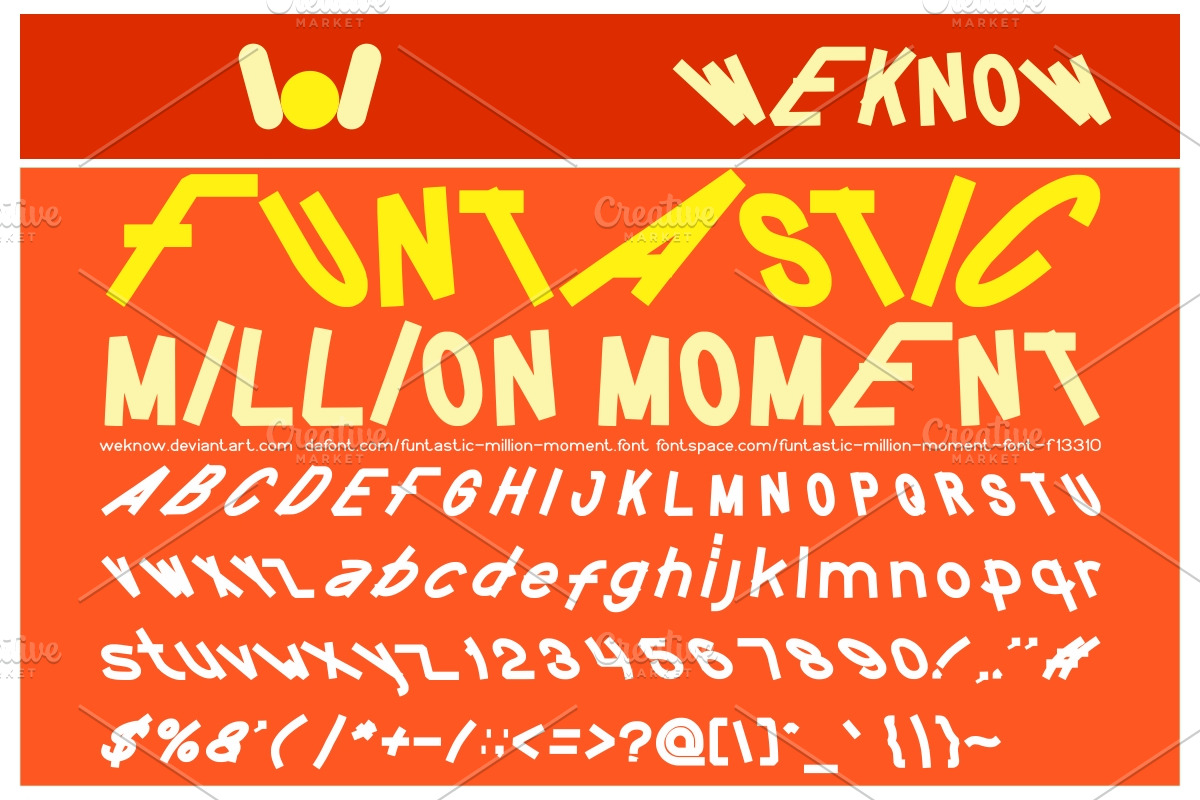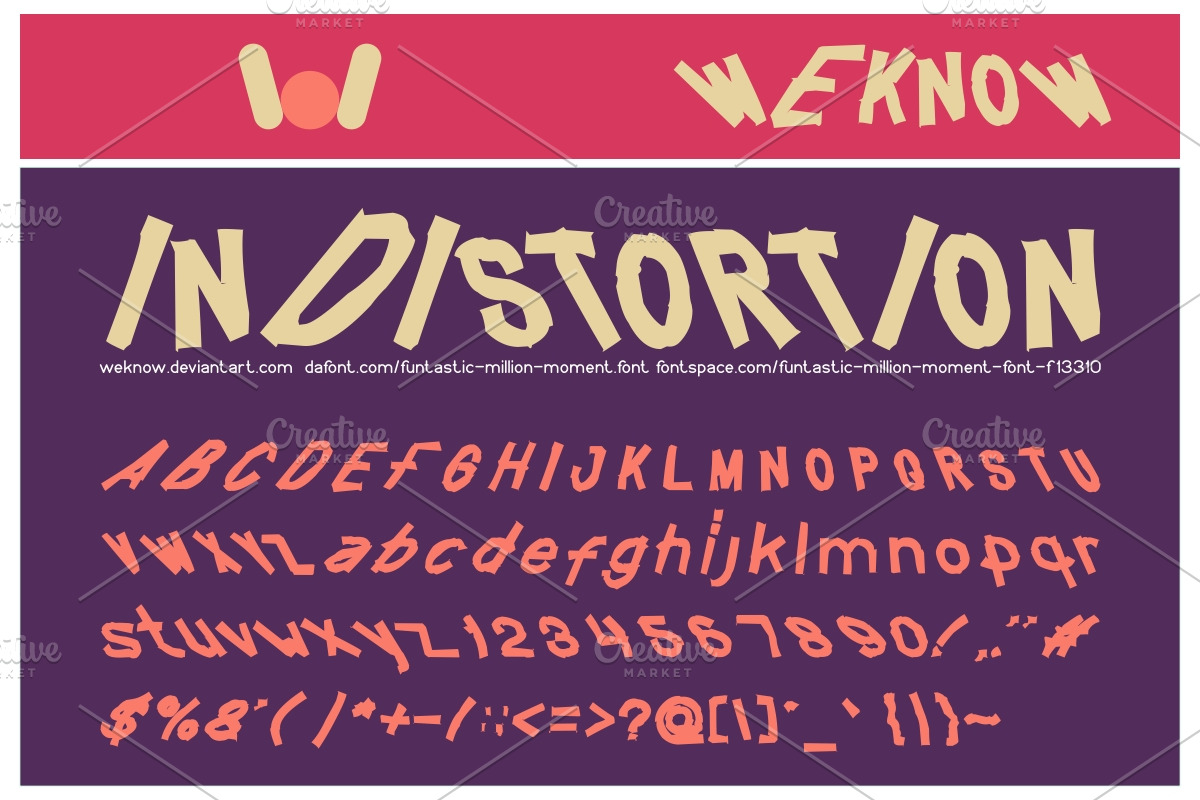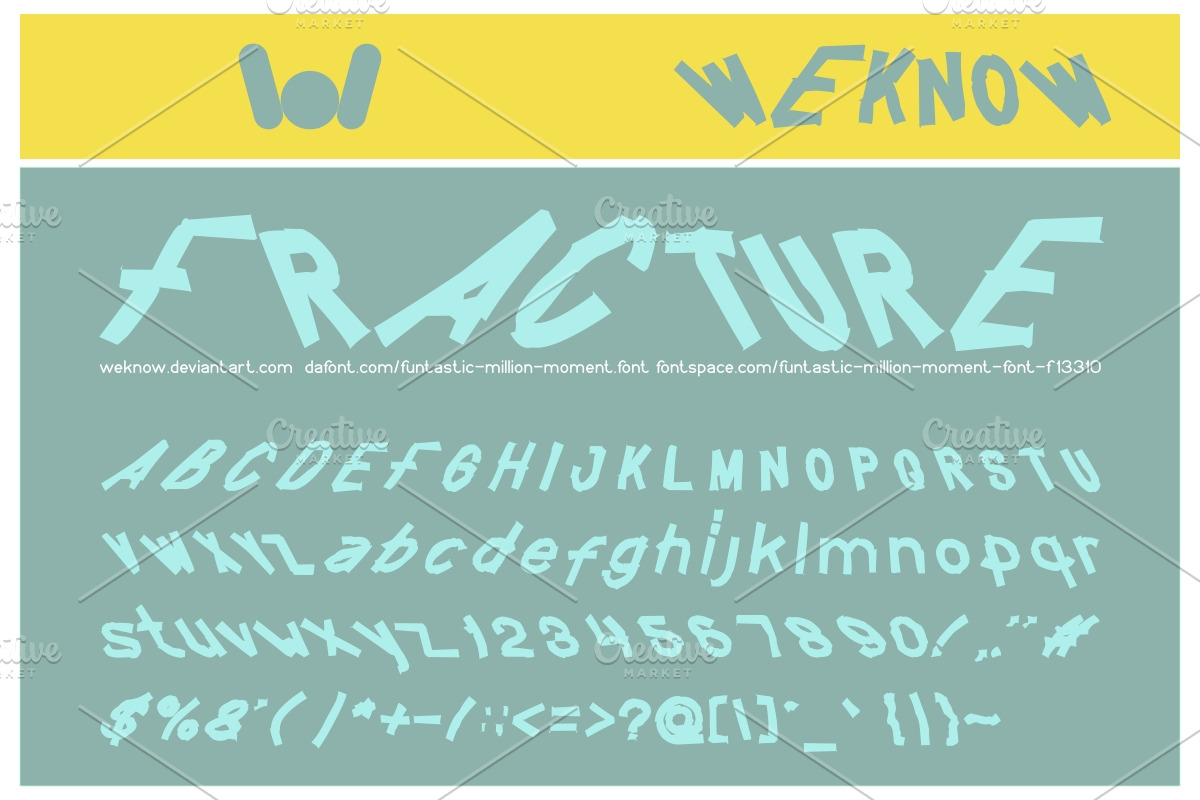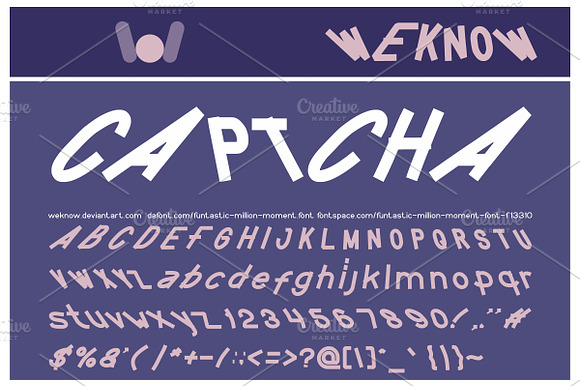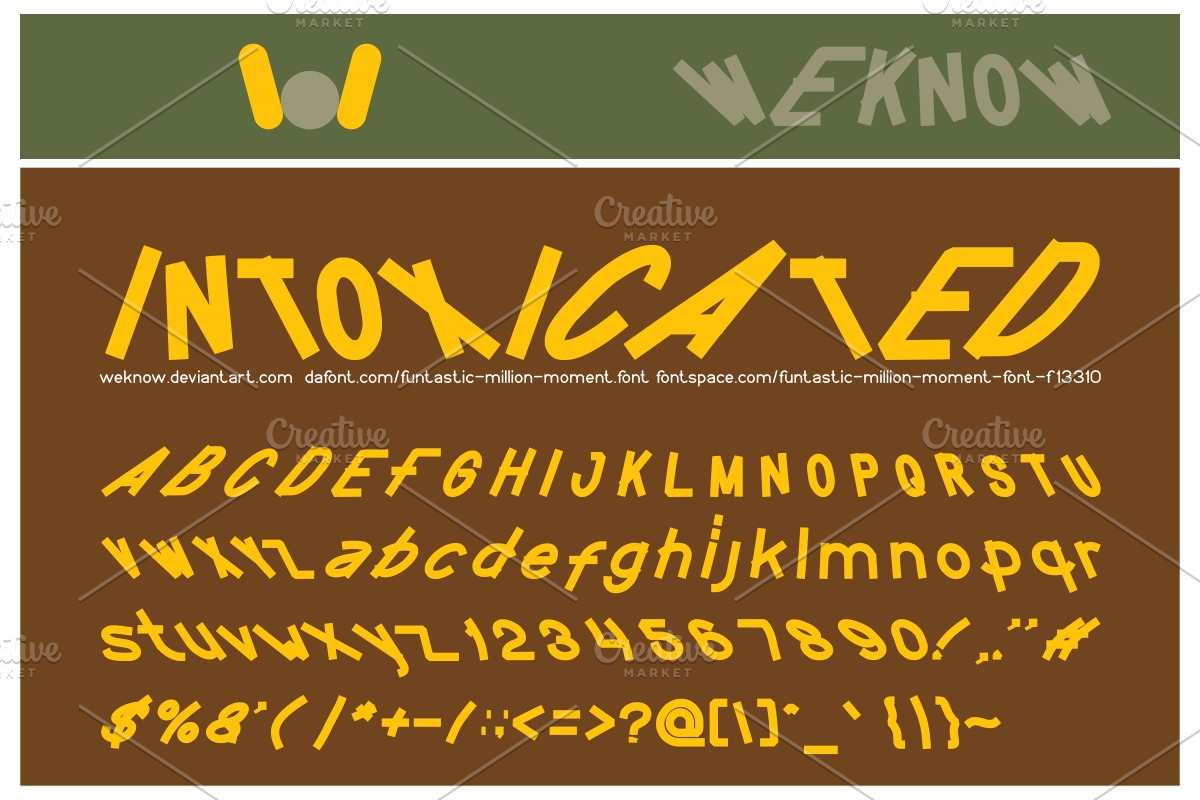
funtastic million moment font
available style: FUNTASTIC million moment-Distorted, FUNTASTIC million moment-Light
Why funtastic million moment font is worth a look
funtastic million moment font by weknow fits naturally into Branding, posters, packaging, typography.